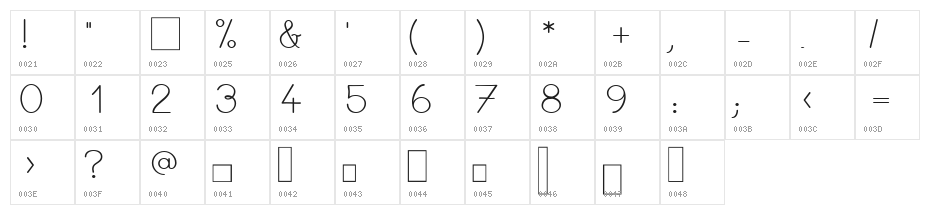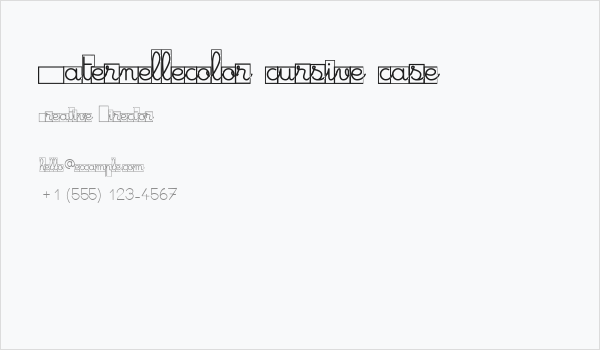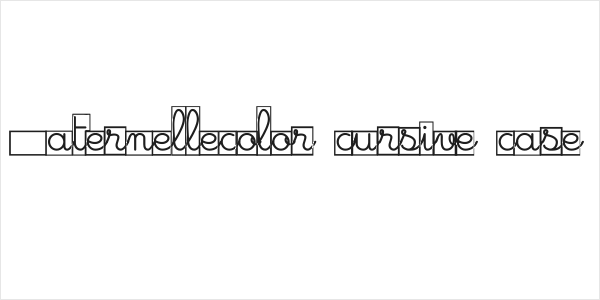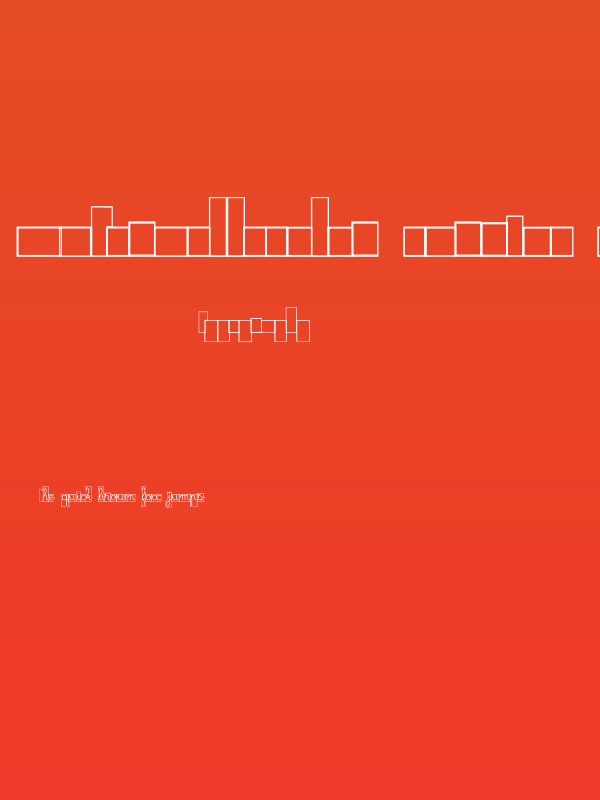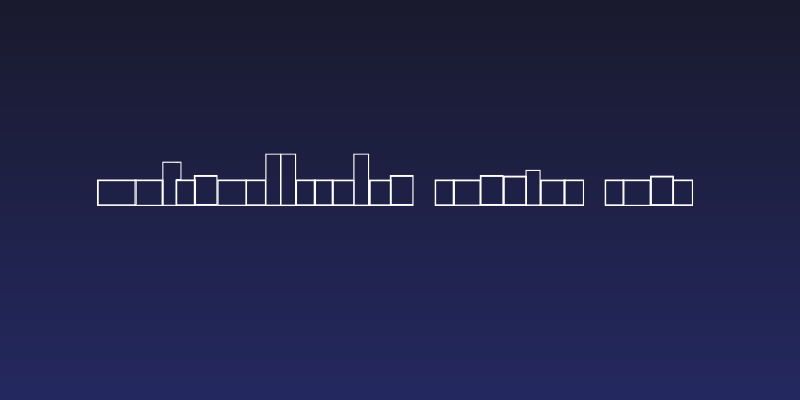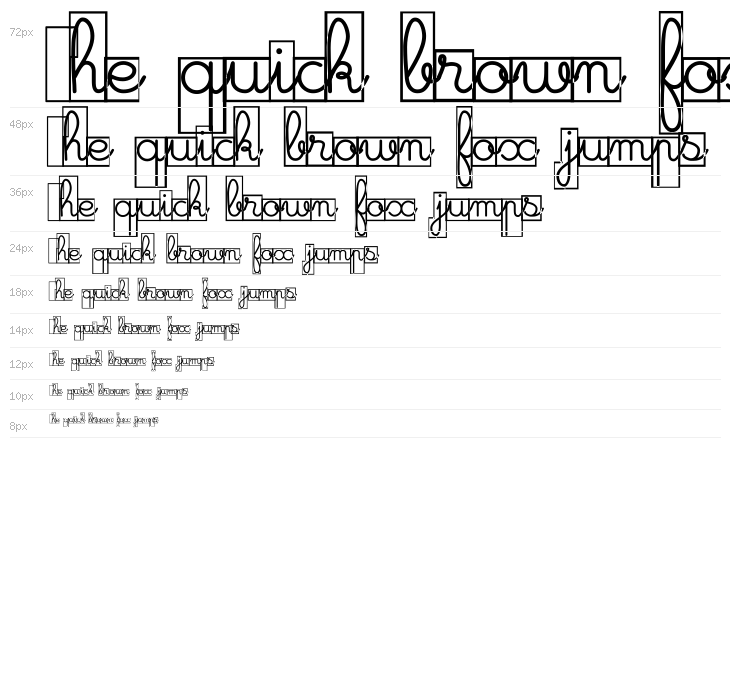
Maternellecolor cursive case Font
Maternellecolor cursive case Description
This font features a playful and flowing cursive style, reminiscent of handwriting taught in early education. The letters are connected, creating a seamless and fluid appearance. The lowercase letters have a consistent loop and curve, while the uppercase letters maintain a structured yet whimsical form. The numerals are clear and easy to read, complementing the overall style. Special characters are integrated smoothly, maintaining the cursive theme. This font exudes a friendly and approachable vibe, ideal for educational materials or creative projects.
| Overall Style | Playful, Educational |
| Use Case | Educational materials, Creative projects |
| Proposed Projects | Ideal for educational materials, children's books, greeting cards, and creative projects requiring a friendly touch. |